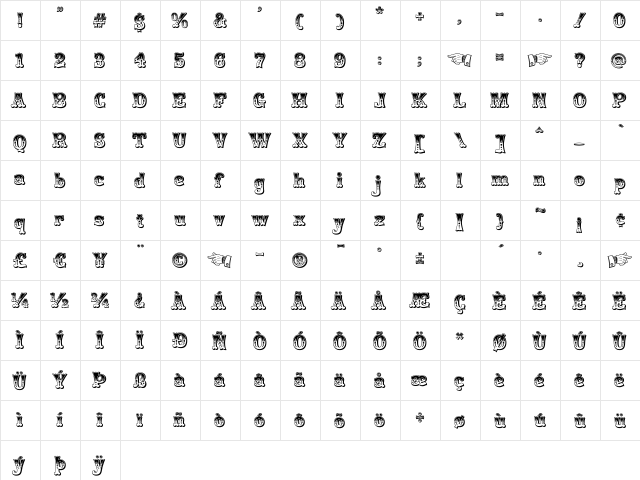
Rodeo Clown Regular
Design Context for Rodeo Clown Typeface
Rodeo Clown is a composed and adaptable typeface that performs quietly and consistently across a wide range of design contexts.